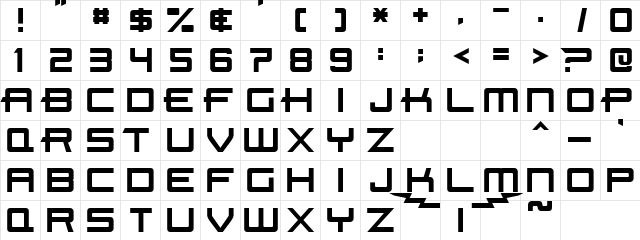
Machines Tille Regular
Design Context for Machines Tille Typeface
Machines Tille takes a measured approach to typography — its balanced proportions and neutral character make it a reliable workhorse for both digital and print work.